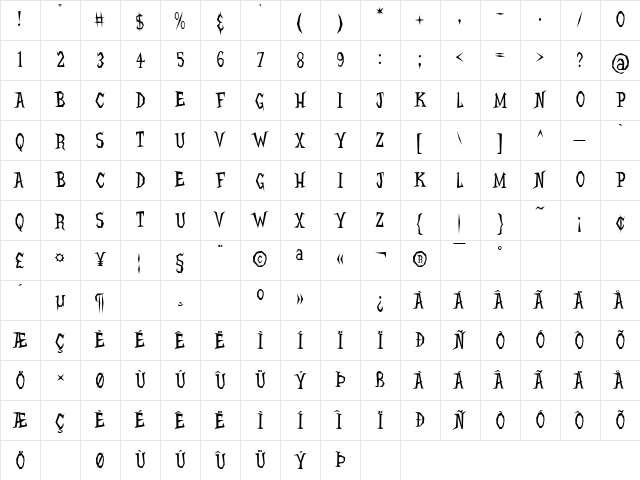
Hellcats BV Regular
Design Context for Hellcats BV
Hellcats BV is a composed and adaptable typeface that performs quietly and consistently across a wide range of design contexts.